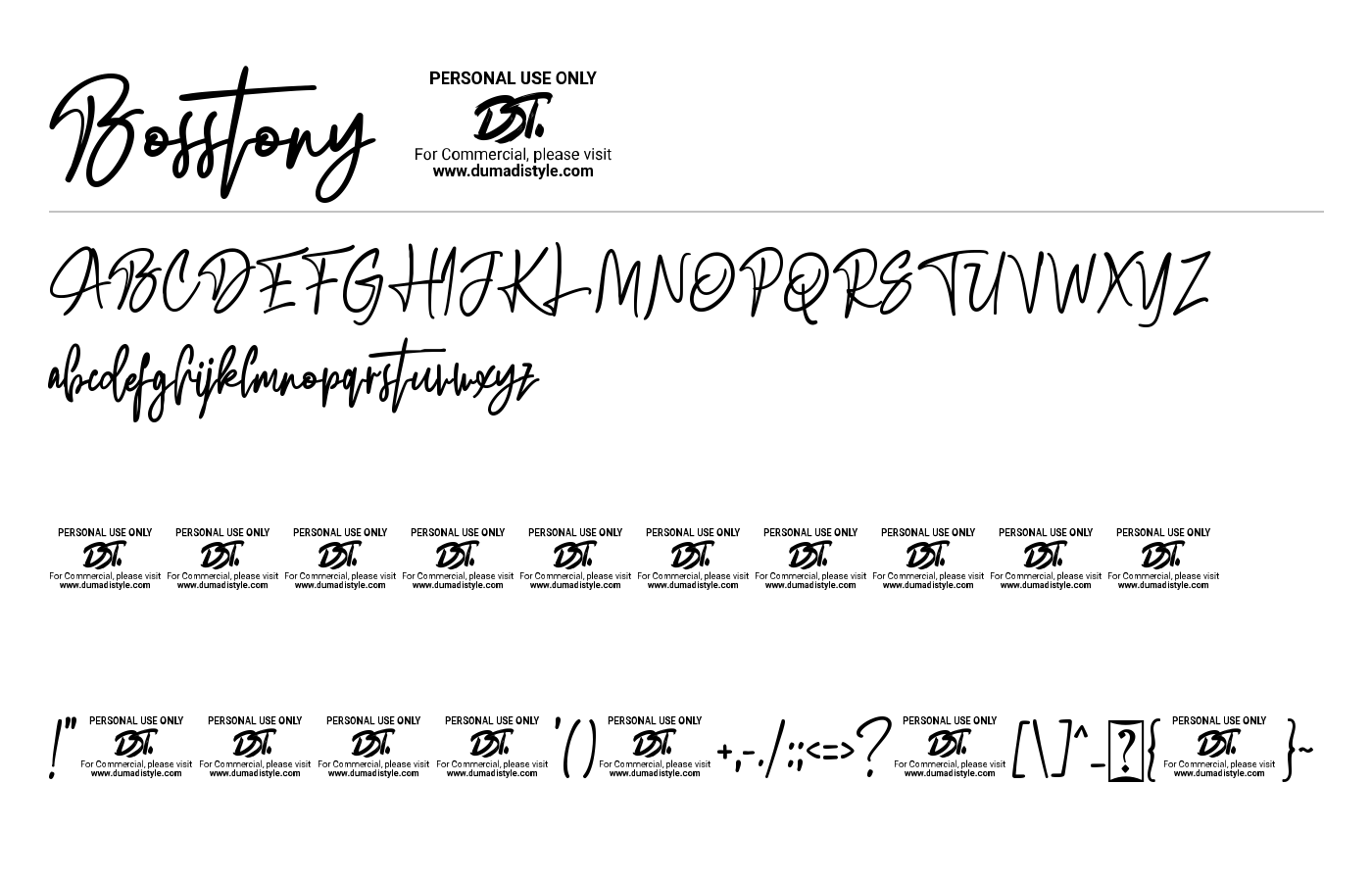
Bosstony 3 is a lively and expressive handwritten script font that features fluid, organic strokes with a playful yet elegant character. Its moderately tall x-height and casual letterforms give it a friendly, personal feel, making it ideal for creative branding, invitations, and social media design where a modern, approachable style is desired. This font works best in headlines and logos that seek to convey warmth and individuality.
Bosstony 3 Font
About Bosstony 3 Font
| Font family | Bosstony 3 Font |
| Designer | Toni Dzulham |